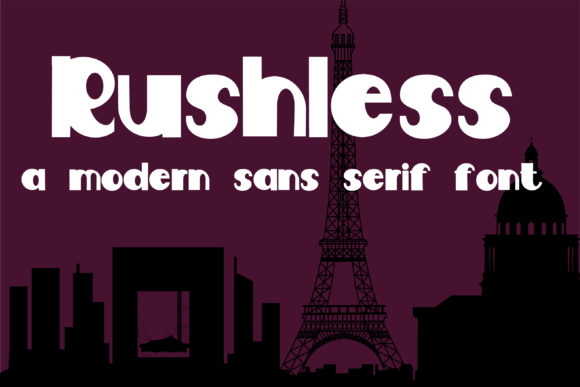
Rushless Font
Introducing Rushless Font, the font that exudes simplicity and sophistication. This sans serif font is a visual masterpiece, with its captivating curves and bold lines that create a striking impact.
Indulge in the beauty of this meticulously crafted font, inspired by the serene flow of a gentle stream. Each letter has been designed with precision, capturing the essence of elegance and modernity.
With its remarkable contrast between thick and round elements, Rushless Font adds a touch of playfulness and intrigue to your designs. Its versatility knows no bounds, making it ideal for a wide range of projects, from minimalist logos and headlines to captivating web designs and social media posts.
Let Rushless Font elevate your creations with its timeless charm. Its captivating curves and bold lines will evoke a sense of wonder and captivate your audience. Embrace the power of simplicity and make a bold statement with Rushless Font.